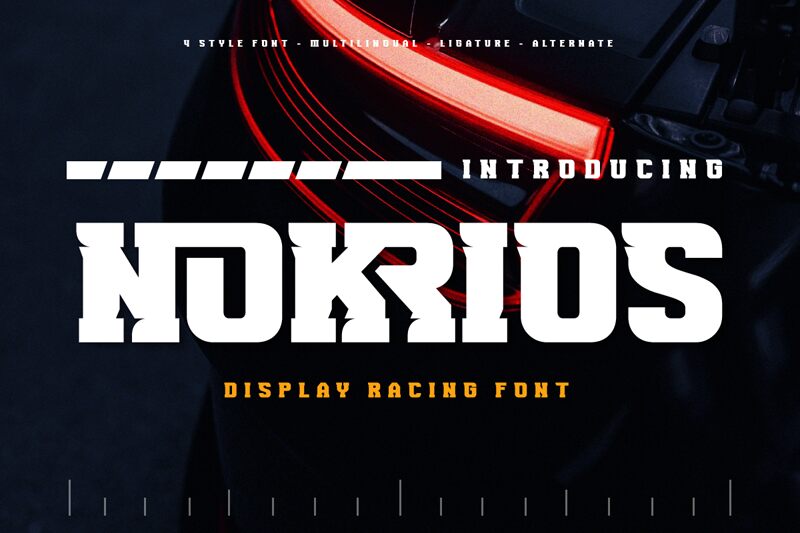
Nokrios Slant emerges as a striking display font from the Nokrios family, designed by Twinletter to make a bold statement. Its character lies in its assertive slant-a dynamic tilt that propels the text forward, suggesting movement and action. The boldness of Nokrios Slant exudes confidence, ensuring that any text set in this font is unmissable and commands attention.
The font's robust presence is softened by subtle curves, creating an aesthetic balance that is both modern and approachable. It’s this combination of vivid personality and readability that makes Nokrios Slant versatile for various design applications. Whether it’s for captivating headlines, impactful posters, or engaging branding materials, this font stands out as a go-to choice for designers aiming to leave a lasting impression with their visual narratives.
NOKRIOS Regular Slant